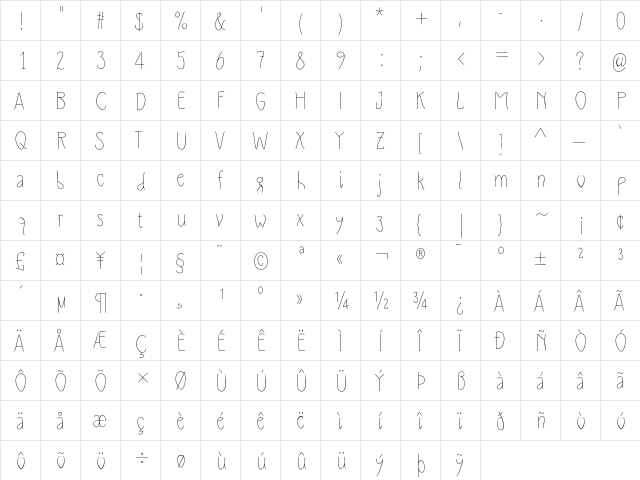
Slimamif Medium
Design Context for Slimamif Typeface
Slimamif is a composed and adaptable typeface that performs quietly and consistently across a wide range of design contexts.